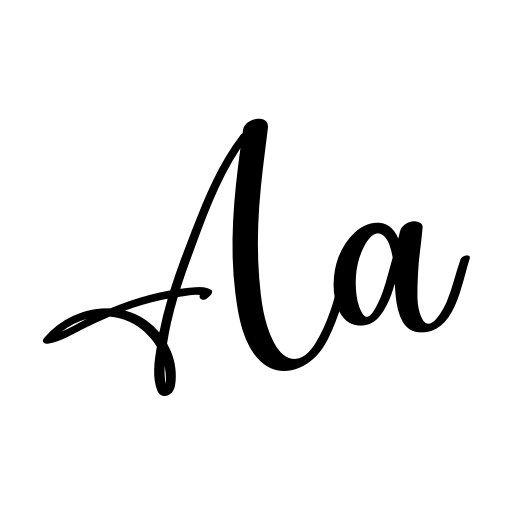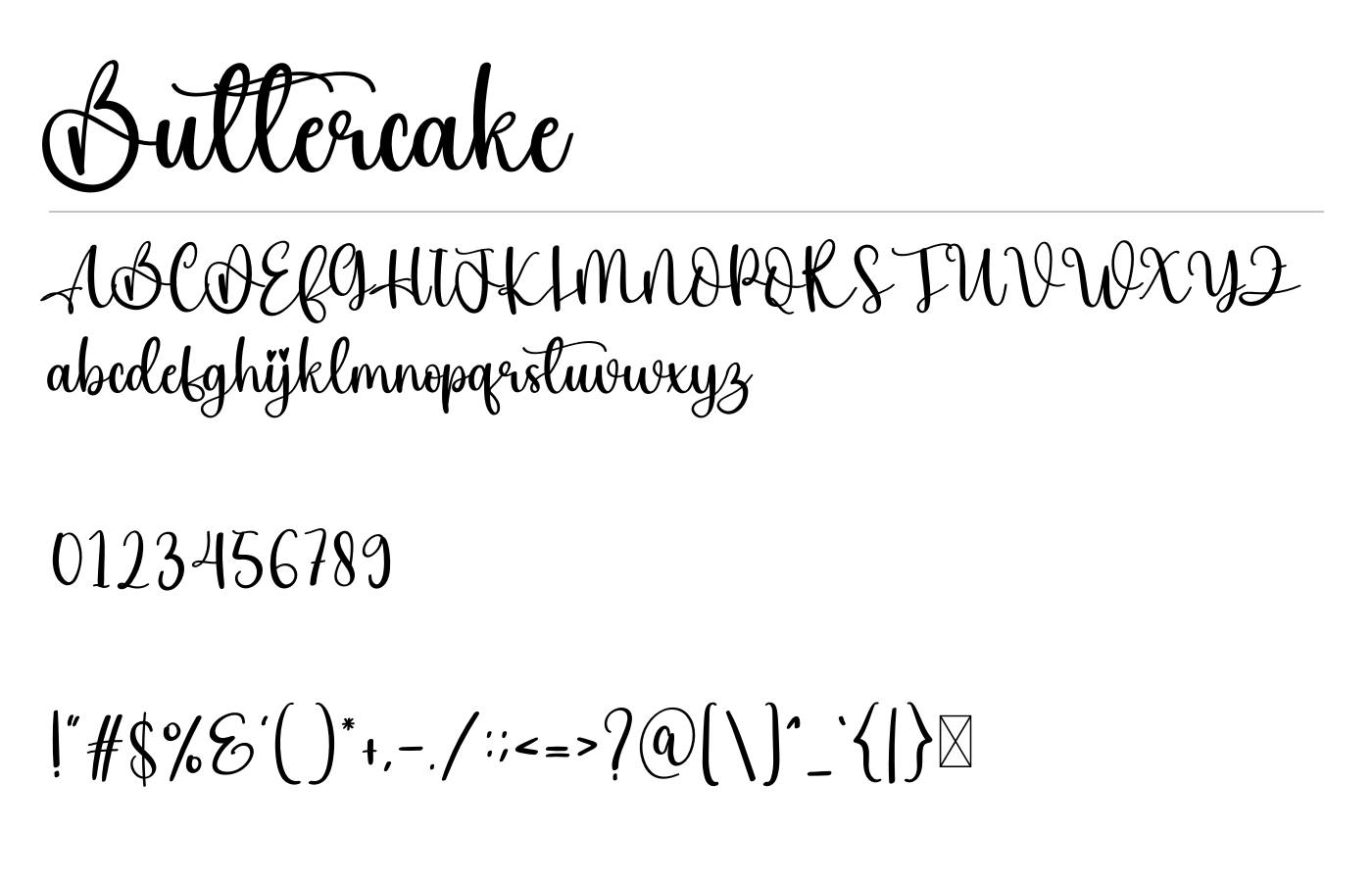
Buttercake is a charming script font with a casual, whimsical feel, characterized by its flowing, hand-drawn letterforms and varying stroke thickness. It features playful swashes and loops that add a personal, friendly touch, making it perfect for creative projects like invitations, branding, and packaging that seek a warm, inviting atmosphere. This font works well in designs that aim for a lighthearted and elegant vibe, especially when used in headlines or decorative accents.
Buttercake Font